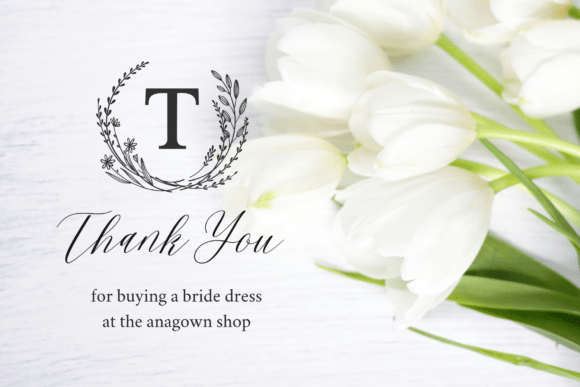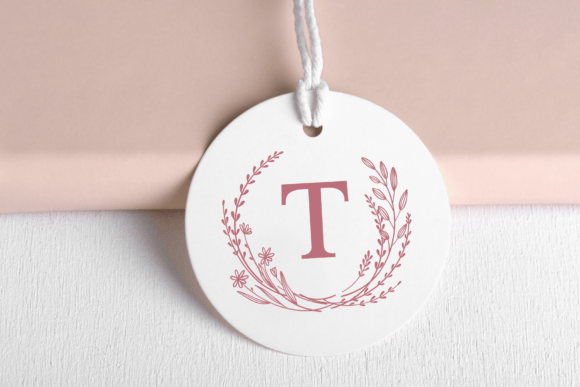
Wildflower Monogram Font
Wildflower Monogram is an elegant font designed for special occasions. It features decorative letters inside a beautiful flower and leaf frame, making it perfect for invitations and wedding cards. This font adds a touch of charm and sophistication to any celebration!